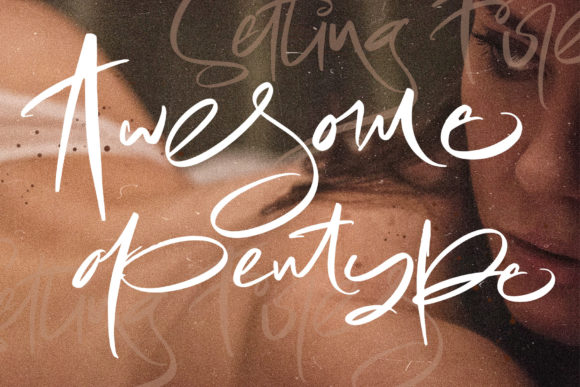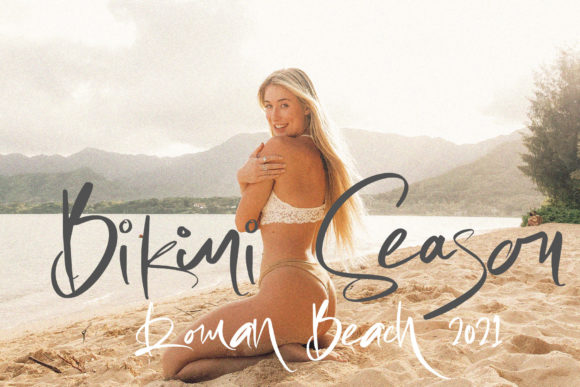
Setting Fires Font
About Setting Fires Font
Setting Fires is a casual script font, defined by a natural brush typography. This font is PUA encoded which means you can access all of the glyphs and swashes with ease!